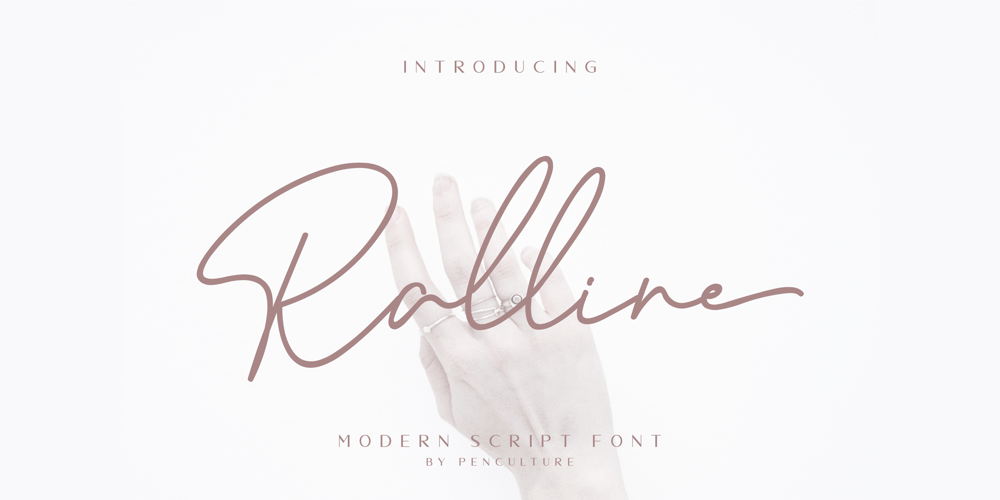
Ralline Font Family was designed by Revo Farsiky and published by Pen Culture. Ralline contains 2 styles and family package options. Introducing the new “Ralline – Modern Signature Font” a natural and fashionable script font with complete features that will be very pleasant. This font easy to use and perfect for logo design / branding, watermark photos, product packaging, and much more.Feature and what inside: uppercase and lowercase number and punctuation ligature Swashes Multilingual support Please fell free to contact me on Hipenculture@gmail.com if you have any questionThank you